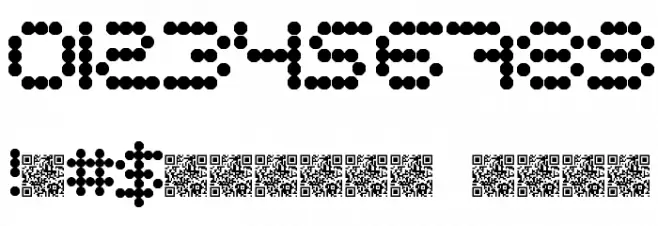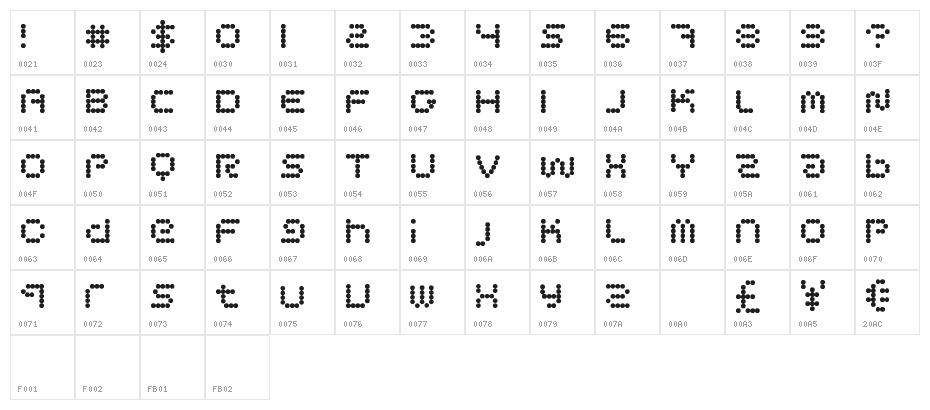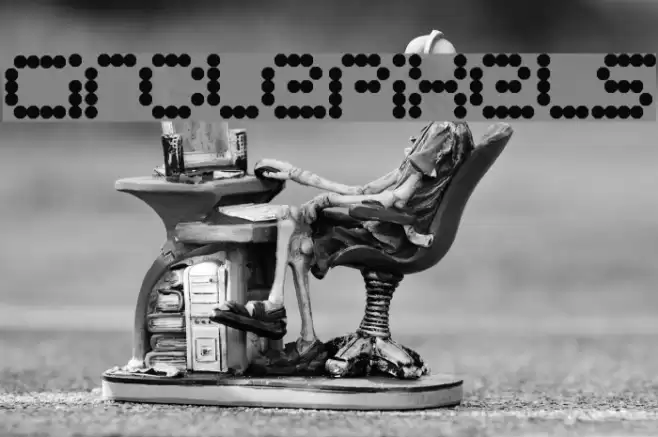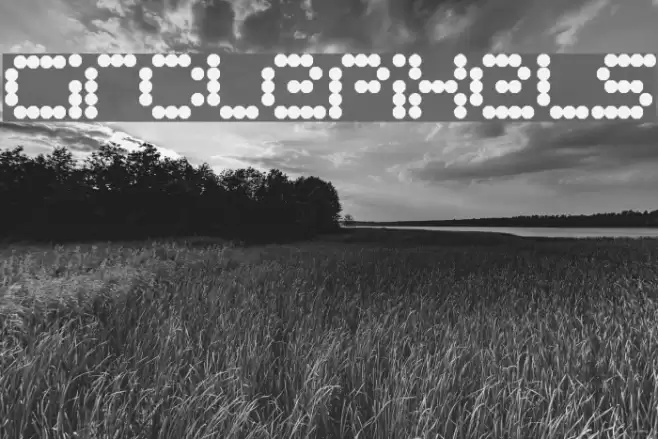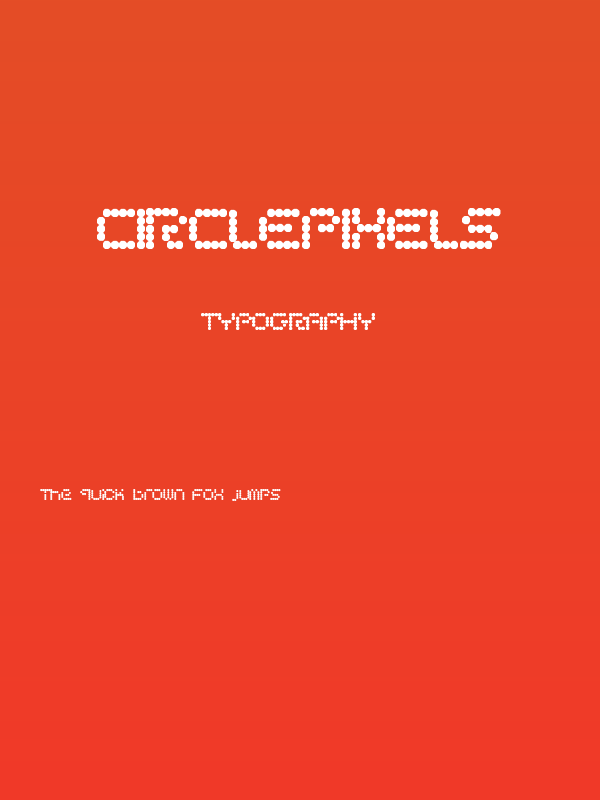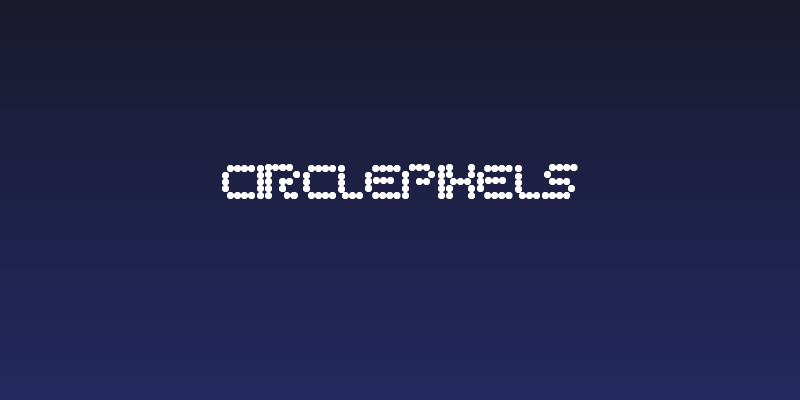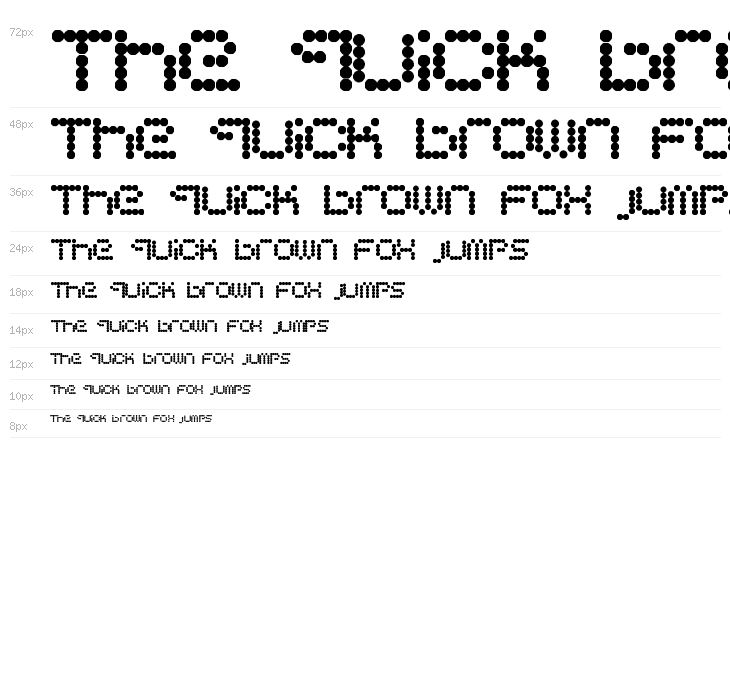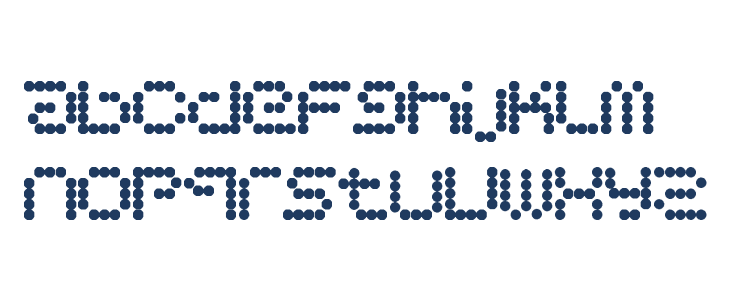
CirclePixels Font
CirclePixels Description
This font is a unique and playful design composed entirely of small, evenly spaced circles forming each character. The circular elements create a pixelated effect, giving it a digital and modern appearance. The uniformity of the circles provides a consistent texture across all characters, making it visually striking and easily recognizable. The font maintains a consistent weight and width throughout, with each letter and number clearly distinguishable. The special characters are also crafted with the same circular motif, ensuring a cohesive look across the entire set. This design is particularly suitable for projects that require a futuristic or tech-inspired aesthetic.
| Use Case | Logos, Headlines, Digital interfaces |
| Proposed Projects | Ideal for digital art, tech branding, video game interfaces, and modern advertising campaigns. |